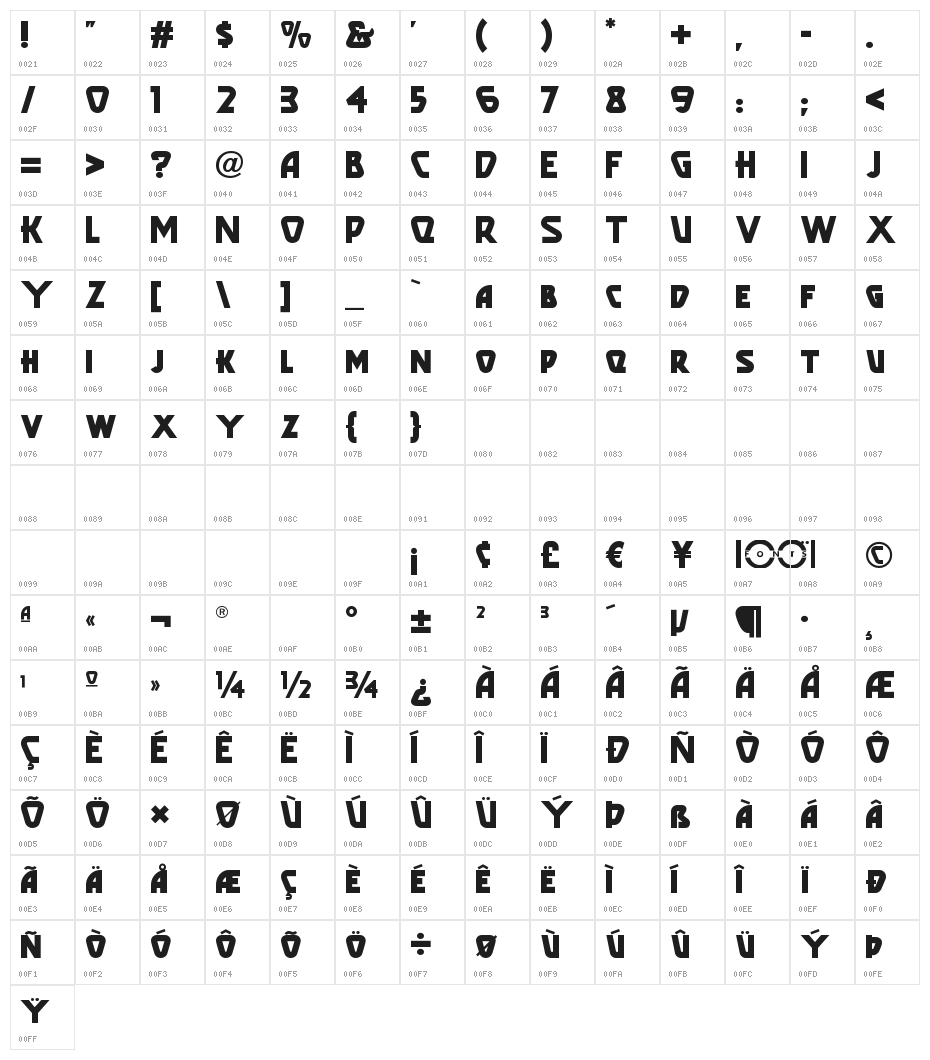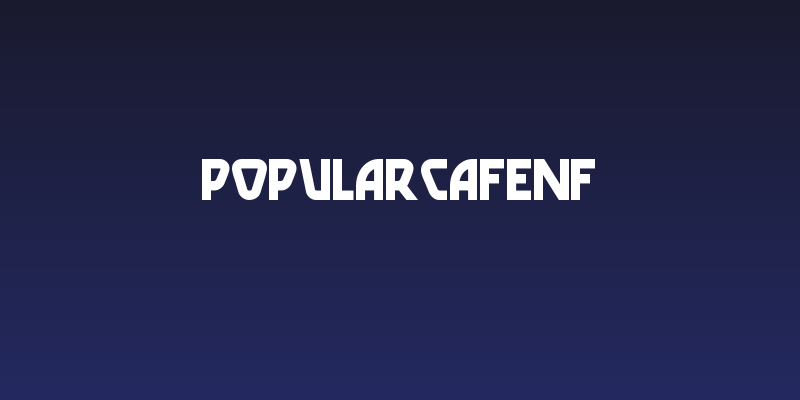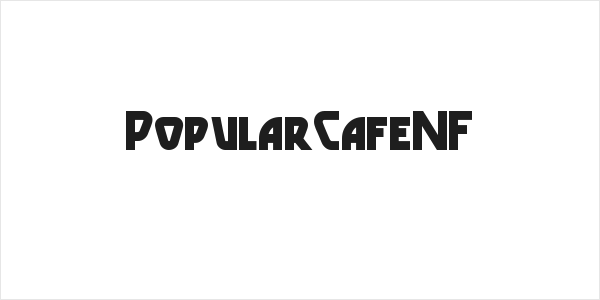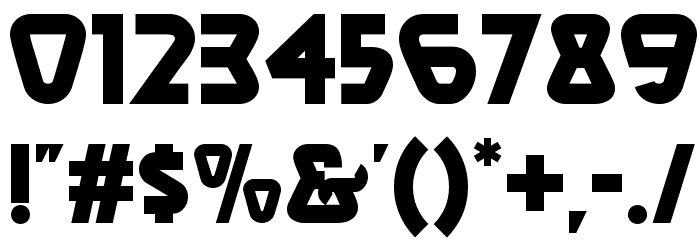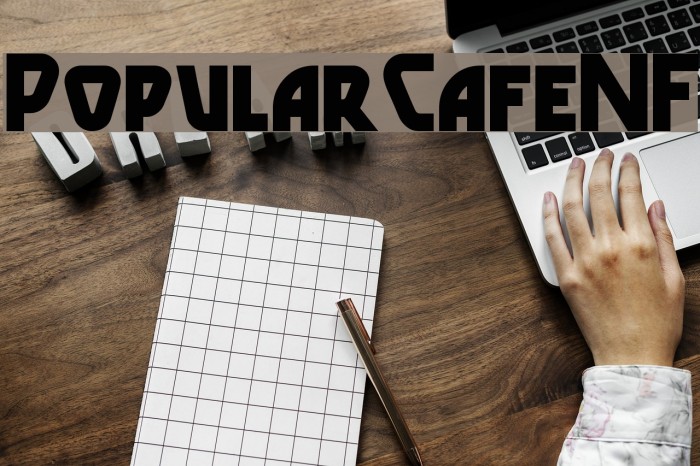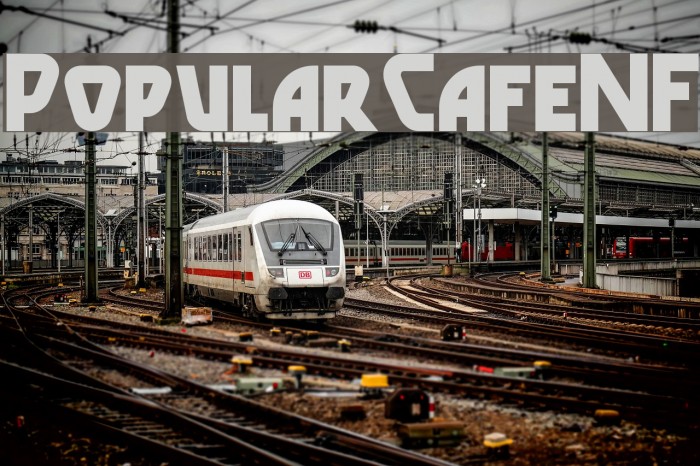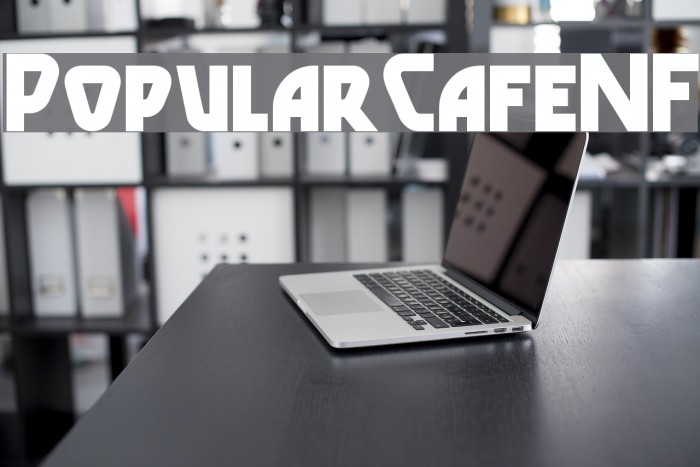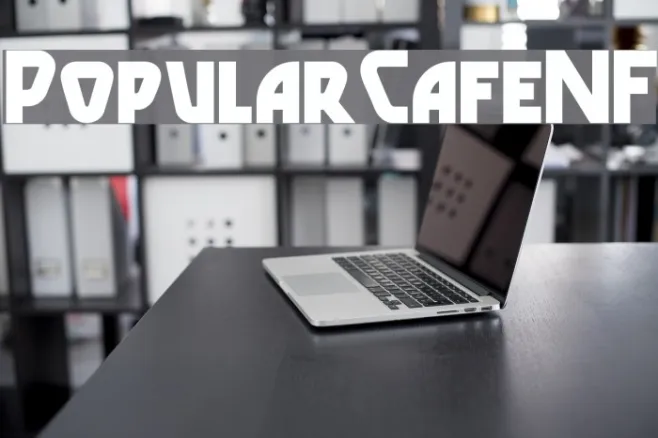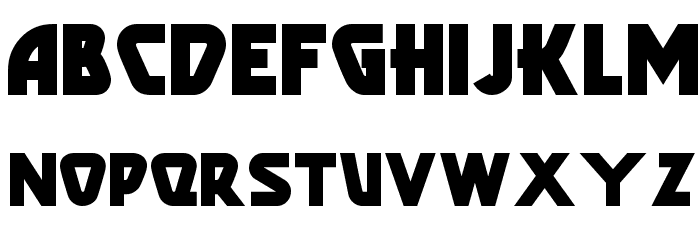
PopularCafeNF Font
PopularCafeNF Description
This font features a bold and geometric style with a strong presence. The characters are constructed with thick, angular lines and sharp edges, giving it a modern and assertive appearance. The uppercase letters are particularly striking, with a consistent height and width that create a uniform look. The lowercase letters maintain the same boldness, ensuring readability and impact. Numbers and special characters follow the same design principles, making them easily recognizable. The overall design is clean and uncluttered, suitable for making a statement in any project.